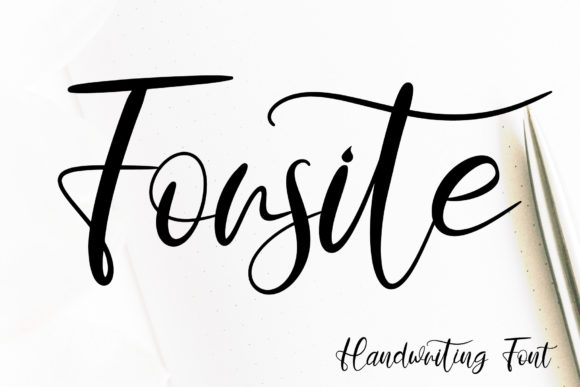
**Introducing Forsite: The Exquisite Script Font**
Immerse yourself in the captivating realm of typography with Forsite, a breathtaking script font that exudes elegance and sophistication. Each letter is a masterpiece, meticulously crafted to evoke a sense of timeless beauty and effortless style.
**A Font for Every Occasion**
Forsite is a versatile chameleon, adapting seamlessly to a myriad of projects. Whether you're designing logos that command attention or creating social media posts that shimmer with allure, Forsite empowers you to express your vision with unparalleled grace.
**Product Packaging That Seduces**
Elevate your product packaging to an art form with Forsite. Its flowing lines and delicate curves will transform ordinary boxes into objects of desire, enticing customers to reach out and experience the products within.
**Branding Projects that Shine**
Forsite is the secret weapon for brands seeking to establish a lasting impression. Its unique character will weave a spell of sophistication around your logo, making it the unforgettable face of your business.
**Magazine Covers that Intrigue**
Capture the attention of discerning readers with Forsite's mesmerizing allure on magazine covers. Its graceful strokes will draw them in, promising an experience that is both captivating and unforgettable.
**Social Media Posts That Sparkle**
Transform your social media presence with Forsite's radiant glow. Its captivating curves will add an air of refinement to every post, turning your followers into loyal admirers of your impeccable taste.
**Weddings That Enchant**
Celebrate the most romantic day of your life with Forsite's enchanting script. Its delicate lines will adorn your invitations, menus, and signage, creating a magical ambiance that will leave a lasting memory on your guests.
**Beyond the Ordinary**
Forsite is not just a font; it's an expression of your individuality and style. Whether you're a seasoned designer or simply seeking a touch of elegance in your personal projects, Forsite will elevate your creations to new heights of beauty and sophistication.